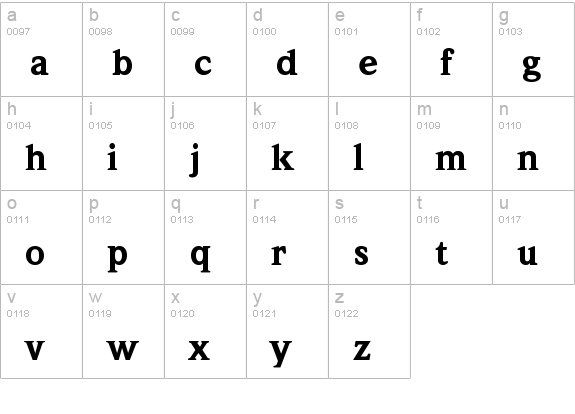
WeidemannEF-Black is a maximum-weight, dramatic variant in the WeidemannEF typeface family \xE2\x80\x94 well suited to maximum-impact headlines, posters, and packaging.
WeidemannEF-Black is a sleek and modern font that exudes confidence and sophistication. Its bold and powerful letterforms make a statement in any design project, whether it's for a logo, headline, or body text. The clean lines and balanced proportions of this font convey a sense of professionalism and elegance. What makes WeidemannEF-Black even more appealing is that it is available for free! You can easily download this font at FontsMarket.com and start using it in your creative endeavors right away. Whether you're a professional designer or a hobbyist, having access to high-quality fonts without breaking the bank is always a welcome opportunity. With WeidemannEF-Black, you can effortlessly elevate your designs and bring them to life with its bold and impactful presence. The versatility of this font allows it to be used in various design styles, from modern and minimalist to more traditional and classic. Whether you're working on a branding project, a website design, or even a print advertisement, WeidemannEF-Black will undoubtedly add a touch of sophistication and professionalism to your work. Its clean and legible letterforms ensure that your message is conveyed with clarity and impact. So why wait? Download WeidemannEF-Black today for free at FontsMarket.com and unlock the potential of this modern and stylish font. Let your creativity soar and create stunning designs that leave a lasting impression.